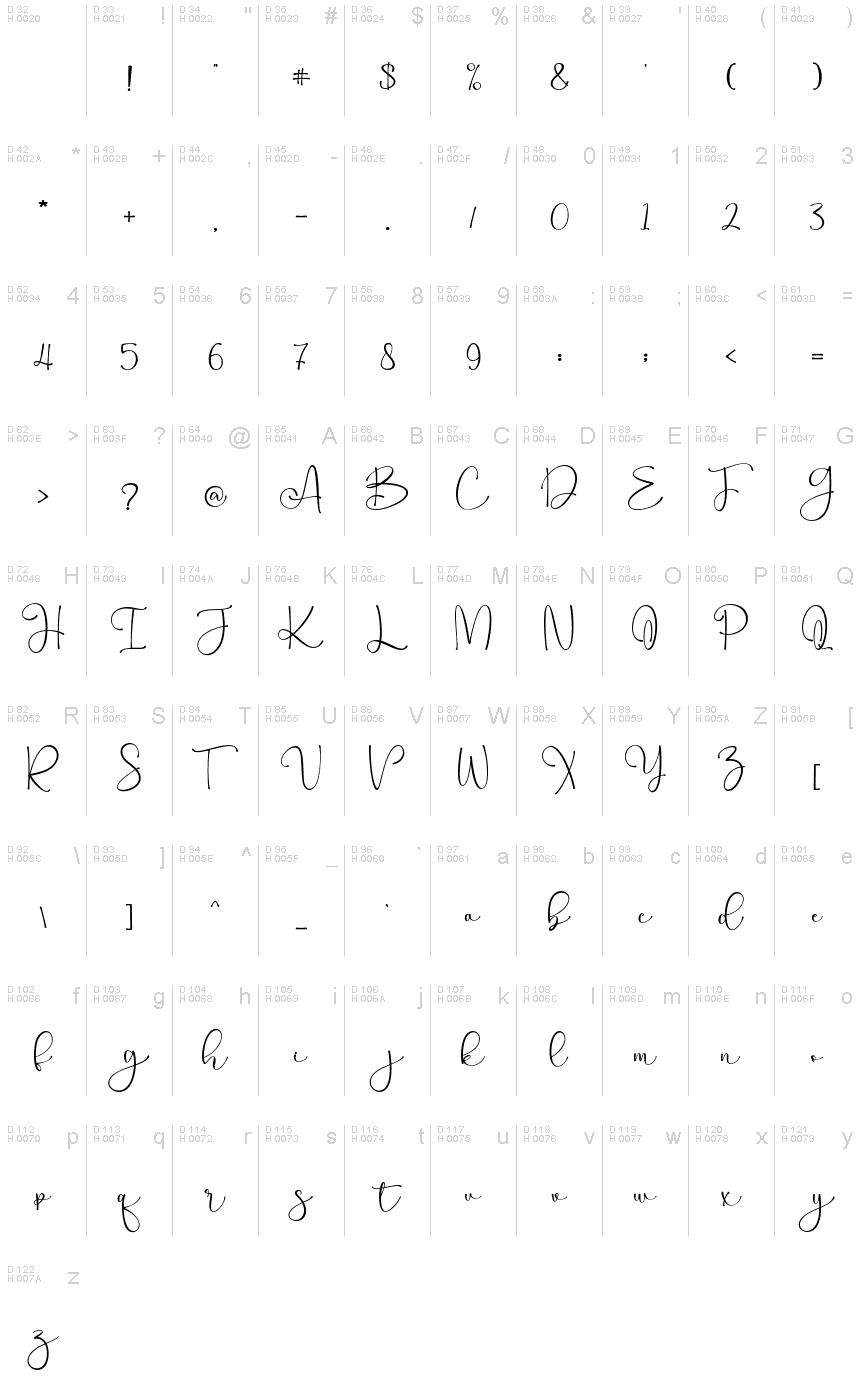
Christmas Praise is a stunning calligraphy font designed by Letterara. Its intricate curves and elegant strokes make it perfect for festive projects like holiday cards, gift tags, and invitations. The light weight of this font adds a delicate touch to any design, making it great for creating soft headlines or adding a playful element to body text. With its versatile style, Christmas Praise can also be used for branding projects or wedding stationery. Spread the joy of the season with this exquisite typeface that captures the essence of Christmas in every letter.